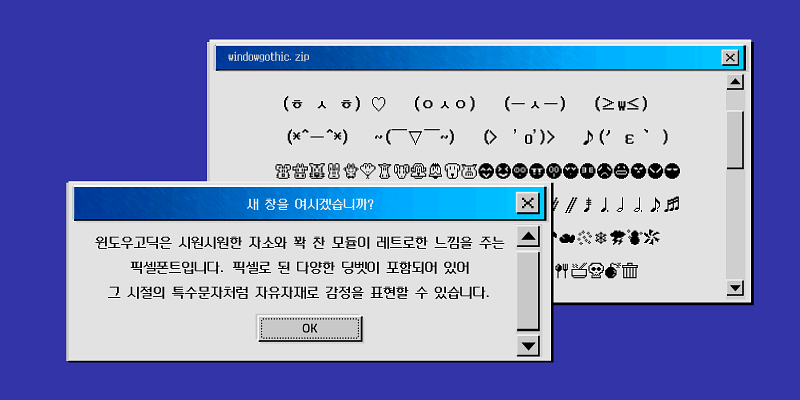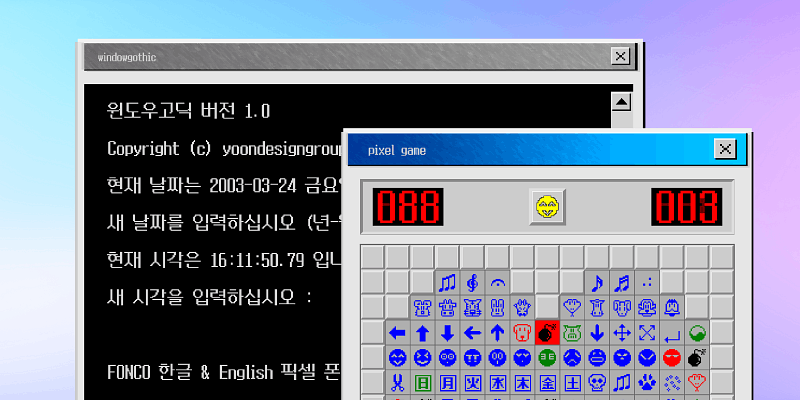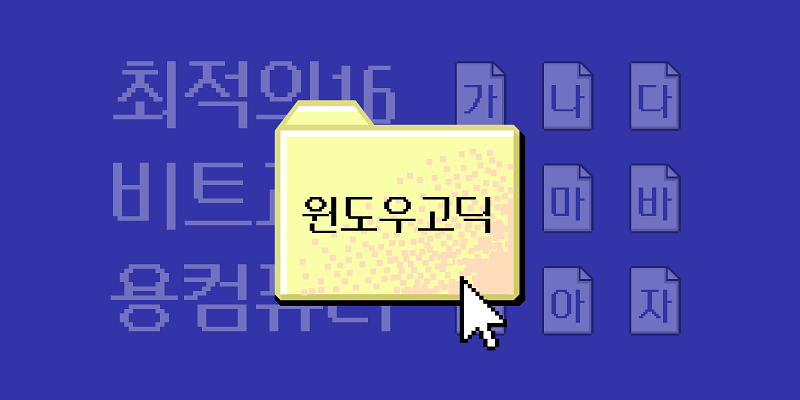
This is a pixel font from Yoondesign Group, modernized and vectorized from the traditional pixel fonts of the past to align with contemporary aesthetic sensibilities. It lends a nostalgic feel with its trendy letter shapes and diverse character set. Moreover, it encompasses a broad range of pixelated symbols, empowering users to articulate their emotions freely, akin to the usage of special characters from past decades.